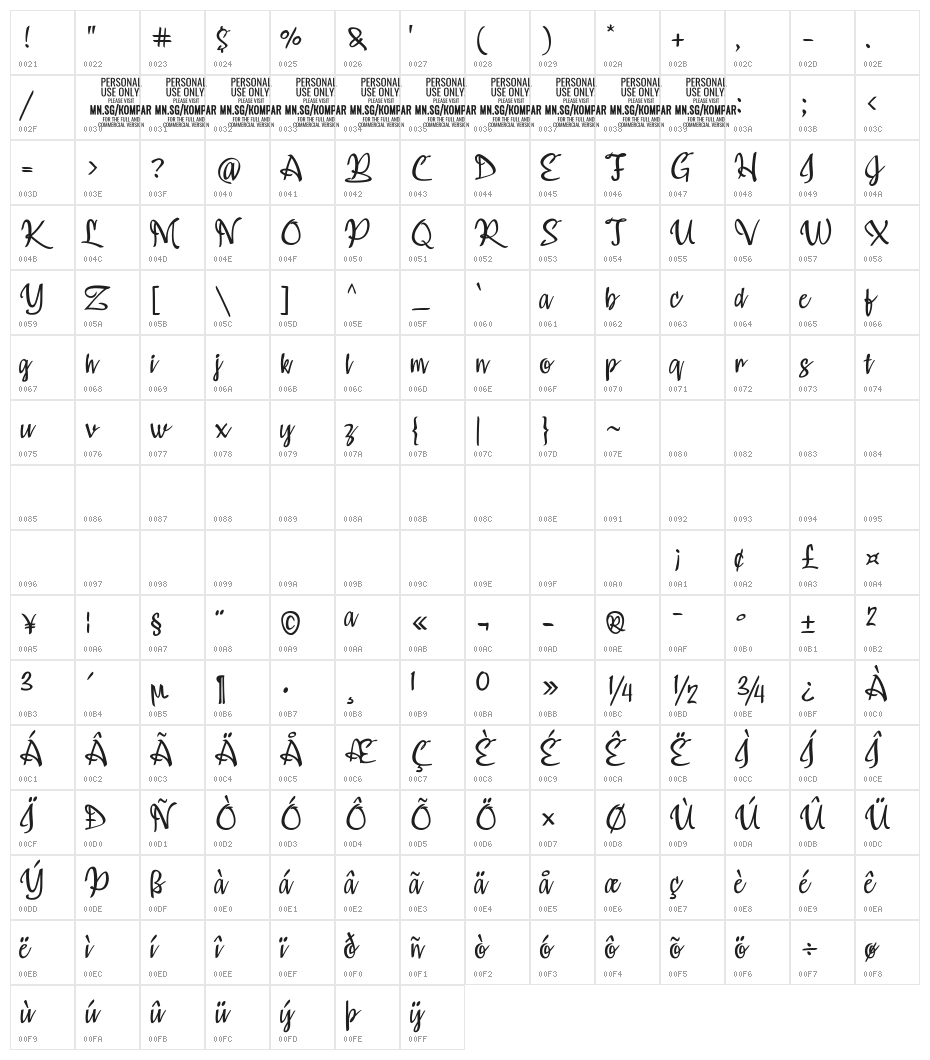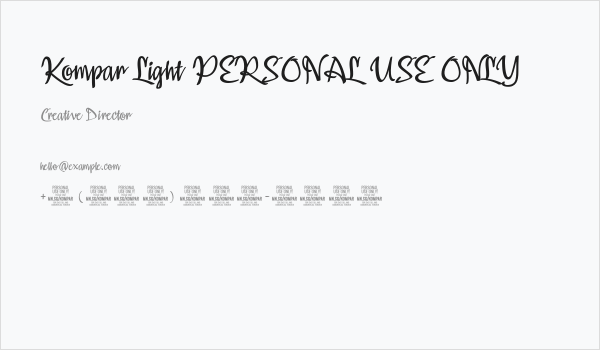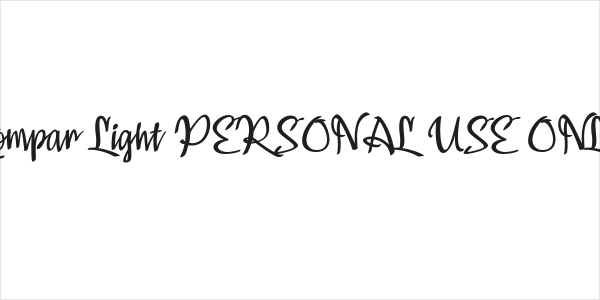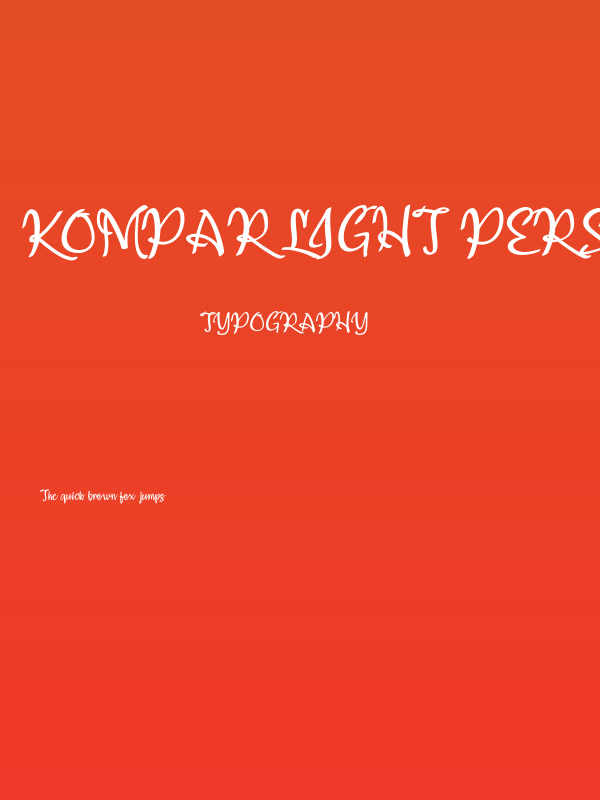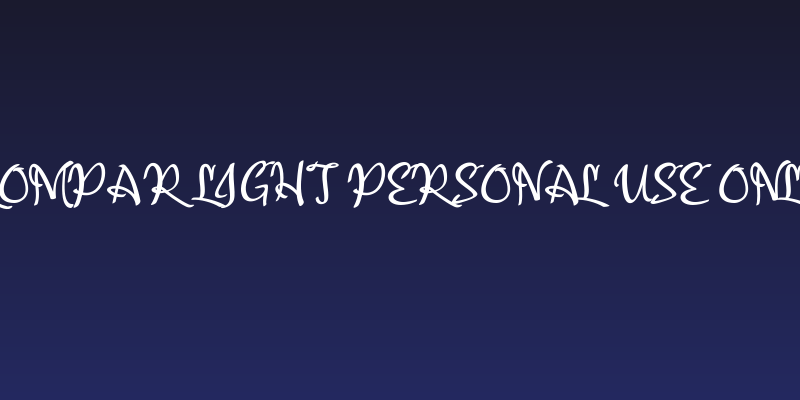
Kompar Light PERSONAL USE ONLY Font
Kompar Light PERSONAL USE ONLY Description
This font features a dynamic and flowing script style, characterized by its elegant curves and smooth connections between letters. The uppercase letters exhibit a playful yet sophisticated flair, with each character having unique flourishes that add to its charm. The lowercase letters maintain a consistent rhythm, enhancing readability while preserving the font's artistic essence. The numerals and special characters are crafted with the same attention to detail, ensuring a cohesive look across all text. This font is ideal for projects that require a touch of elegance and creativity.
| Overall Style | Elegant and Artistic |
| Use Case | Logos, Invitations, Decorative Text |
| Proposed Projects | Ideal for wedding invitations, branding, greeting cards, and elegant packaging designs. |